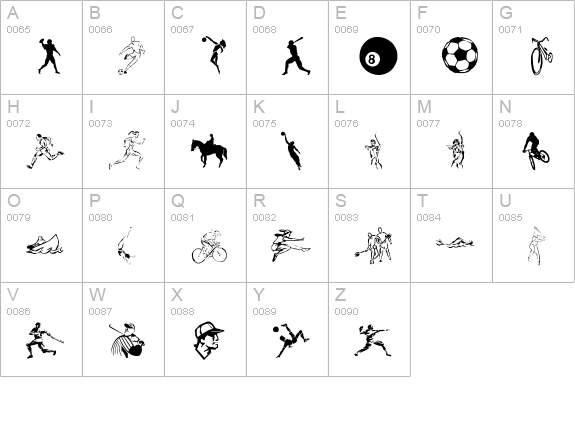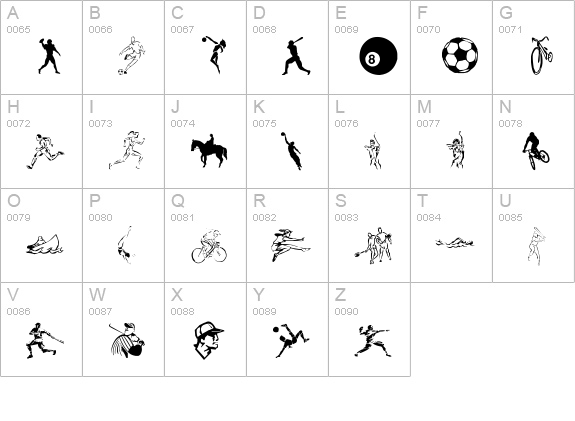
lpsports2 Font Details
Introducing lpsports2 font, a dynamic and versatile typeface designed to bring a touch of energy and athleticism to your projects. With its bold and modern design, lpsports2 font is perfect for sports-related content, branding, posters, and more. This font exudes strength and confidence, making it an ideal choice for any design that aims to make a bold statement. Best of all, lpsports2 font is available for free download at FontsMarket.com. This means you can easily access this powerful font and incorporate it into your designs without any cost. Don't miss out on the opportunity to elevate your projects with the sleek and impactful lpsports2 font – download it today and let your creativity soar!